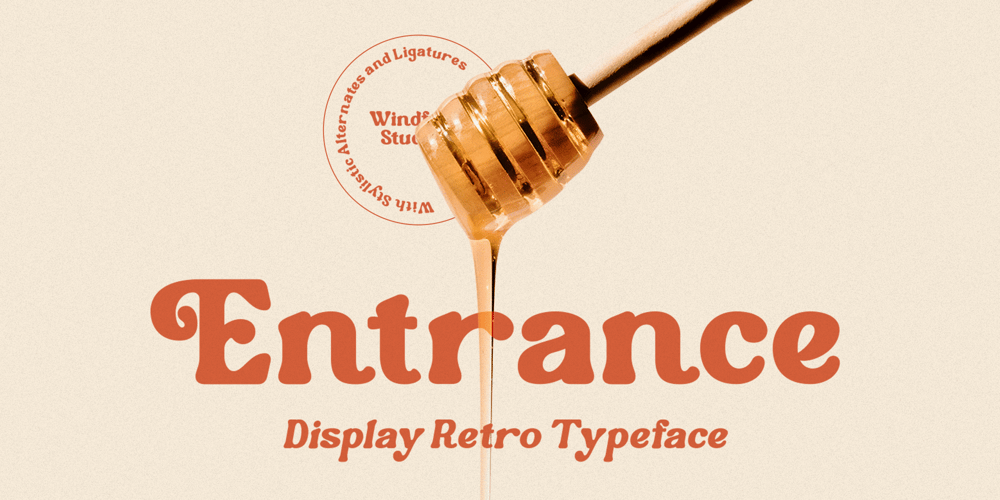
Entrance Font Family was designed by Anggia Putri Premitasari and published by Windfall Studio. Entrance contains 1 styles and family package options. Entrance is a retro rounded font that captures the essence of vintage typography with a modern twist. Its rounded edges and playful curves evoke a sense of nostalgia while maintaining a contemporary appeal. Perfect for adding a retro touch to your designs, Krone brings a sense of warmth and charm to any project.